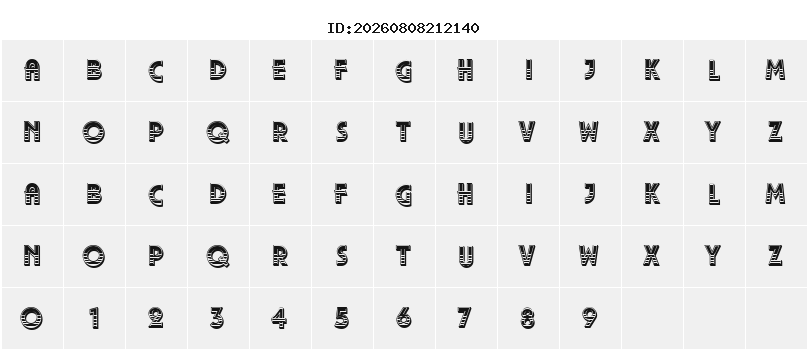
Pizzicato-Decorative Preview
• Font Name: Pizzicato-Decorative
• Font ID: SoftMaker Software GmbH Pizzicato-Decorative-Regular
• Full Font Name: Pizzicato-Decorative-Regular
• Version: Version 1.0 17-12-2002
• PostScript Name: PizzicatoDecorative
• Character Count: 165
• Designer: SoftMaker Software GmbH
• Manufacturer: SoftMaker Software GmbH
About Pizzicato-Decorative.ttf
Pizzicato-Decorative.ttf is a modern, elegant sans-serif font designed for ultimate readability and visual harmony. Perfect for branding, headlines, web design, and print materials.